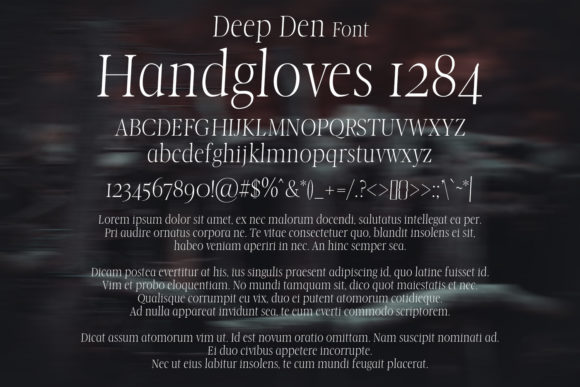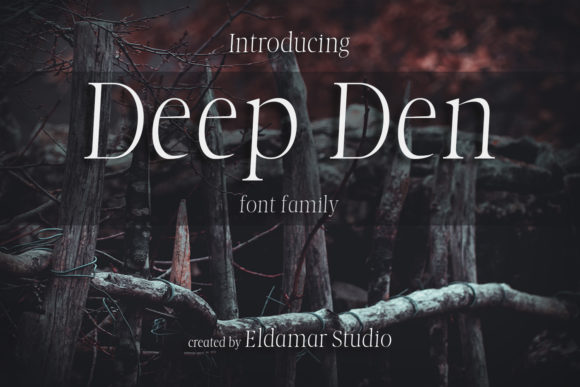
Introducing Deep Den Font: The Ultimate Serif Choice for Designers
In the world of typography, a good font can make all the difference in the success of a design project. For designers and crafters, finding the perfect font that combines elegance, simplicity, and versatility can be a daunting task. However, if you’re looking for a reliable and stylish serif font, look no further than Deep Den Font. In this article, we’ll explore the features and benefits of Deep Den Font, and why it’s about to become your new favorite go-to font.
What is Deep Den Font?
Deep Den Font is a minimal, yet elegant serif font that has been carefully crafted to meet the needs of designers and crafters. Its neat and simple style makes it an excellent choice for a wide variety of designs, from logos and branding to packaging, posters, and digital media. Whether you’re working on a personal project or a client’s, Deep Den Font is sure to impress.
Key Features of Deep Den Font
• Minimalist Design: Deep Den Font boasts a clean and minimalist design that ensures your message takes center stage.
• Elegant Serifs: The font’s elegant serifs add a touch of sophistication and refinement to any design.
• Versatility: Deep Den Font is incredibly versatile, making it suitable for a wide range of design applications.
• Readability: The font’s clear and simple style ensures excellent readability, even at small sizes.
Benefits of Using Deep Den Font
So, why choose Deep Den Font for your next design project? Here are just a few benefits you can expect:
• Easy to Pair: Deep Den Font pairs well with a variety of fonts, making it easy to create harmonious and visually appealing combinations.
• Customizable: The font’s simple design makes it easy to customize and modify to suit your specific needs.
• Time-Saving: With Deep Den Font, you can save time and focus on other aspects of your design project, knowing that your typography is in good hands.
• Professional Results: The font’s elegant design ensures professional-looking results that will impress your clients or audience.
Who Can Benefit from Deep Den Font?
Deep Den Font is an excellent choice for a wide range of designers and crafters, including:
• Graphic Designers: Whether you’re working on logos, branding, or marketing materials, Deep Den Font is a great addition to your font library.
• Digital Designers: For web and digital media designers, Deep Den Font offers a clean and elegant solution for UI/UX design.
• Crafters: If you’re a crafter or DIY enthusiast, Deep Den Font is perfect for creating beautiful and professional-looking projects, from signs to invitations.
In conclusion, Deep Den Font is a versatile and elegant serif font that is sure to become your new favorite go-to font. With its minimalist design, elegant serifs, and excellent readability, it’s perfect for a wide range of design applications. Whether you’re a graphic designer, digital designer, or crafter, Deep Den Font is an excellent addition to your font library. So why wait? Discover the benefits of Deep Den Font for yourself and take your designs to the next level.